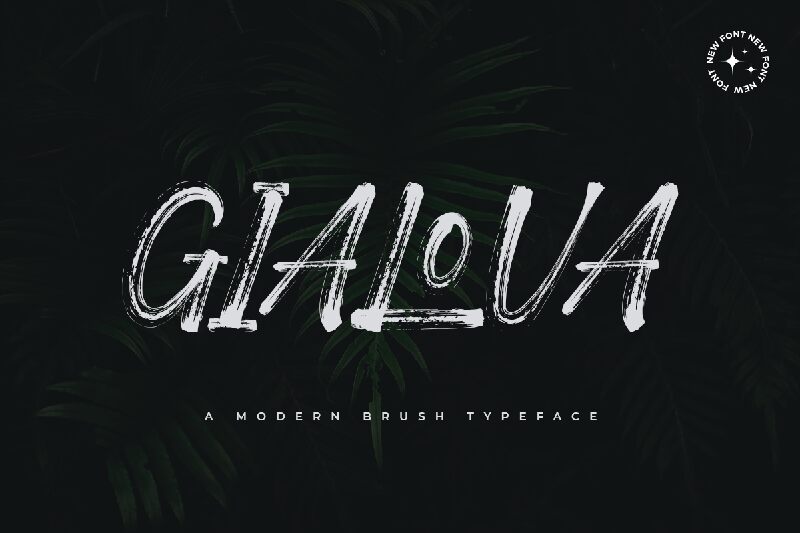
Gialova font by Kong Font is a free brush font with an expressive, artistic flair that gives it an exquisite vintage feel. Its textured design adds remarkable depth and character to both small and large body text for sub-headline and headline text.
Use Gialova for your copy headlines, book covers, magazine titles, movie posters, advertisements, websites, social media posts, typographic prints and posters.